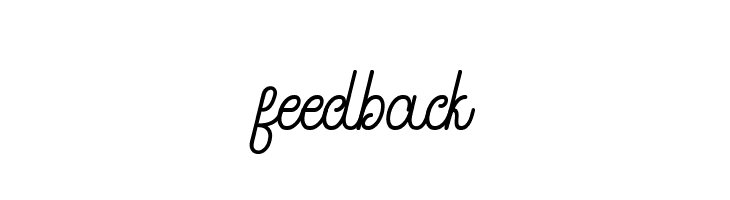
An elegant, flowing script font with a handwritten style.
A flowing, cursive script font with elegant, connected strokes.
An elegant, flowing script font with bold, confident strokes.
A lively, handwritten font with fluid strokes and a casual, playful style.
A modern, cursive script font with elegant loops and swashes.
A fluid and elegant handwritten style with dynamic letterforms.
A playful, hand-drawn style font with bold, rounded characters.
A graceful and sophisticated script font with flowing, connected strokes.
An elegant, flowing script font with intricate loops and modern flair.
A playful, elegant script font with a handwritten feel and decorative swirls.